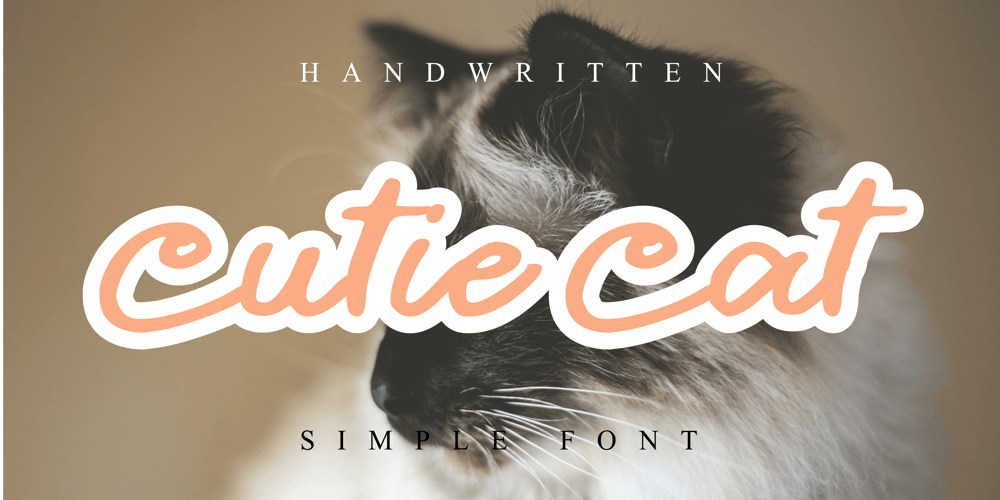
Cutie Cat Font Family was designed by Mariyana and published by Goodigital13. Cutie Cat contains 1 styles and family package options. You can use it as a logo, badge, insignia, packaging, headline, poster, etc signature, stationery, logo, typography quotes, magazine or book cover, website header, flyer, clothing, branding, packaging design and more.suitable for logo, branding, greeting card, poster and any design that you create.perfect for many different project such as logos & branding, invitation, stationery, wedding designs, social media posts, advertisements, product packaging, product designs, label, photography, watermark, special events or anything.